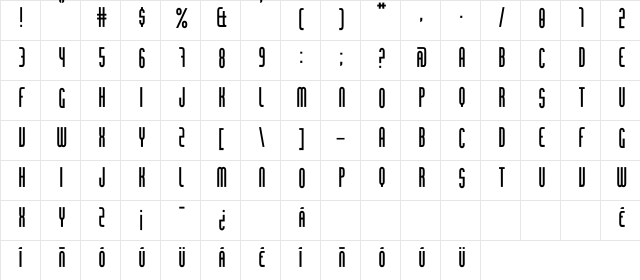
Chingolo Pro Regular
Design Context for Chingolo Pro Typeface
Chingolo Pro offers clean, dependable letterforms without strong stylistic allegiance, making it a practical choice for designers who need flexibility.